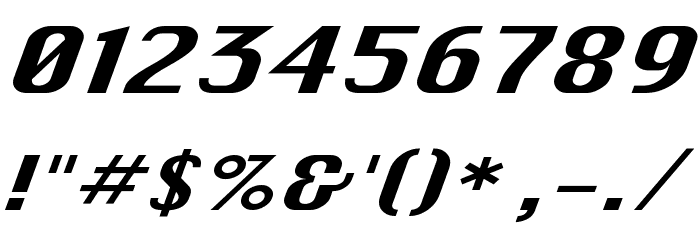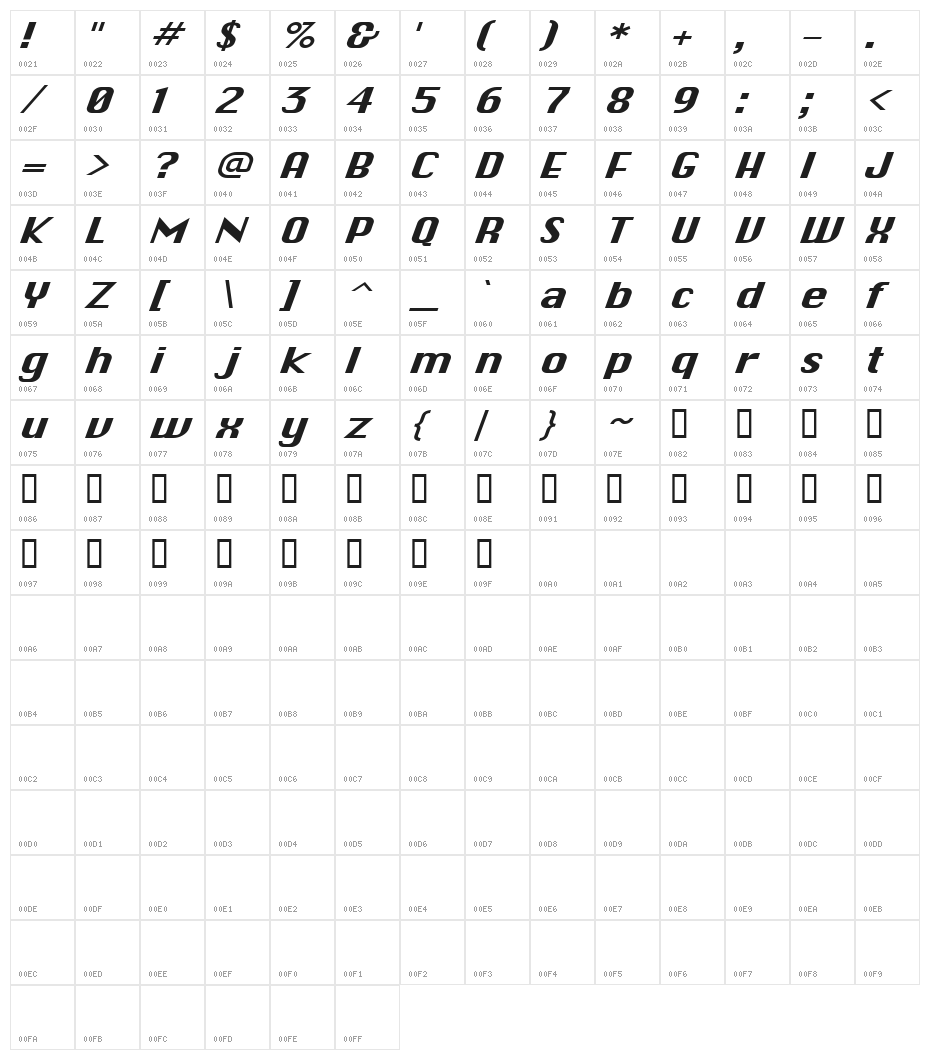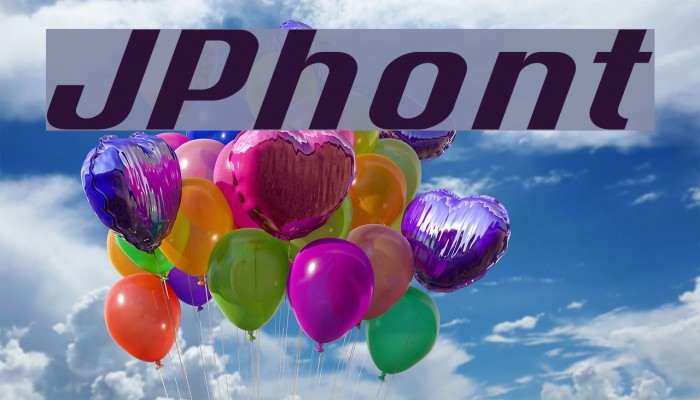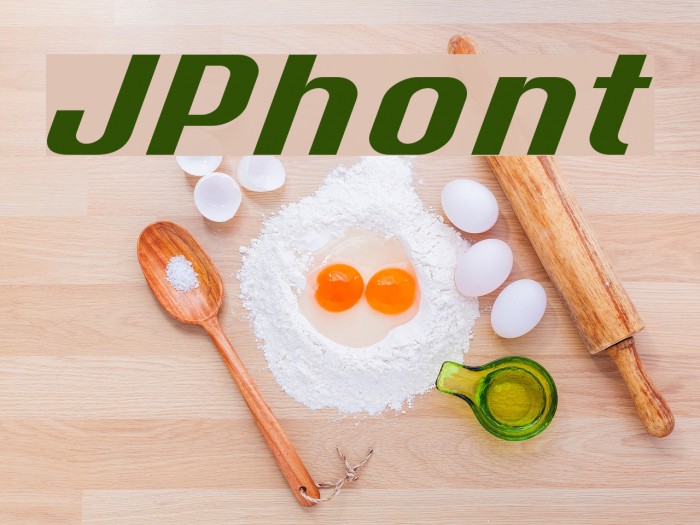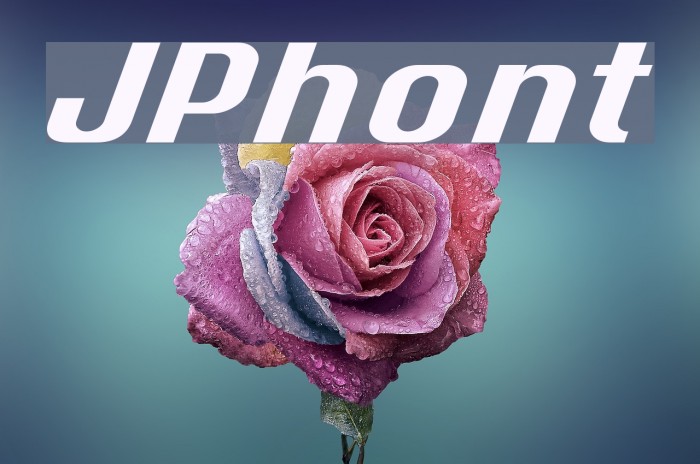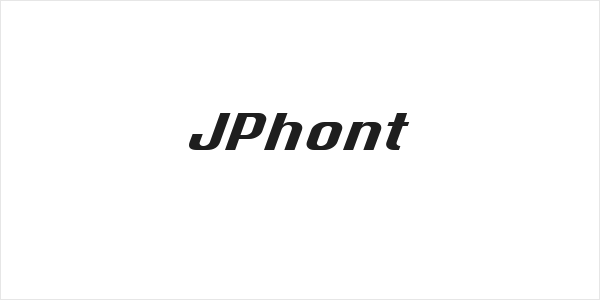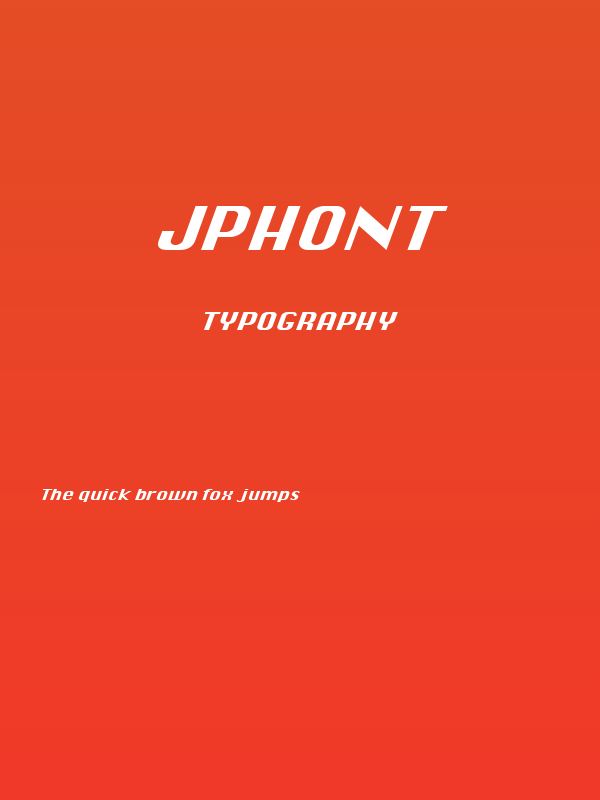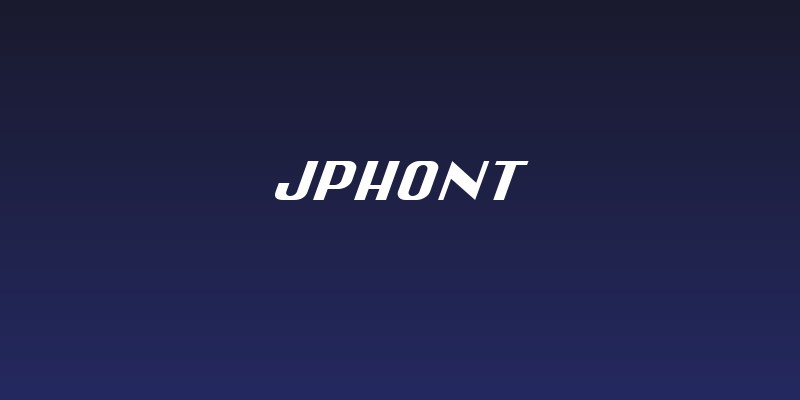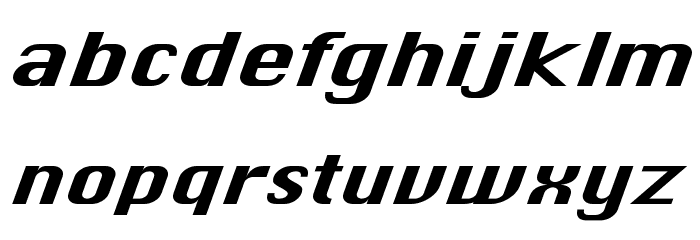
JPhont Font
JPhont Description
This font exhibits a dynamic and modern style with a slight italic slant, giving it a sense of motion and energy. The characters are bold and have a uniform stroke width, contributing to a strong and impactful appearance. The uppercase letters are particularly striking, with sharp angles and a geometric influence that adds a contemporary edge. The lowercase letters maintain the same boldness and are well-balanced, ensuring readability. The numerals are consistent with the overall style, providing clarity and uniformity. Special characters are designed to match the font's aesthetic, making it versatile for various uses.
| Proposed Projects | Ideal for branding, advertising, sports team logos, and dynamic headlines. |